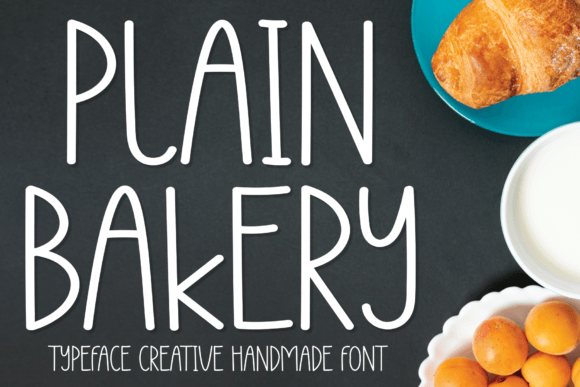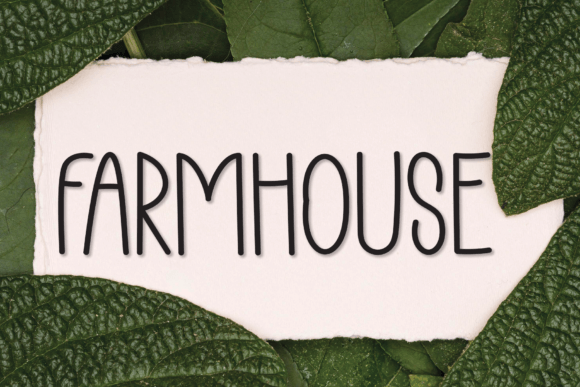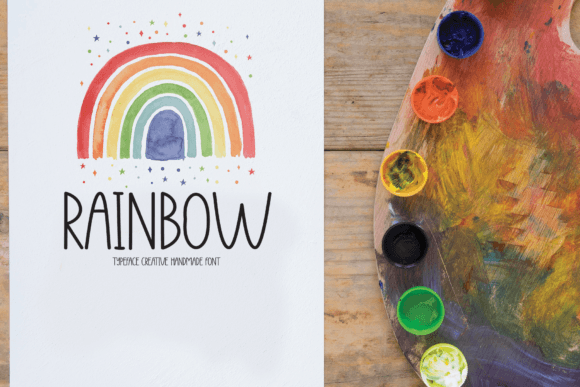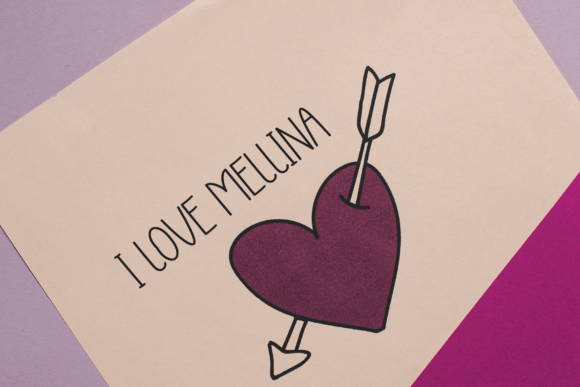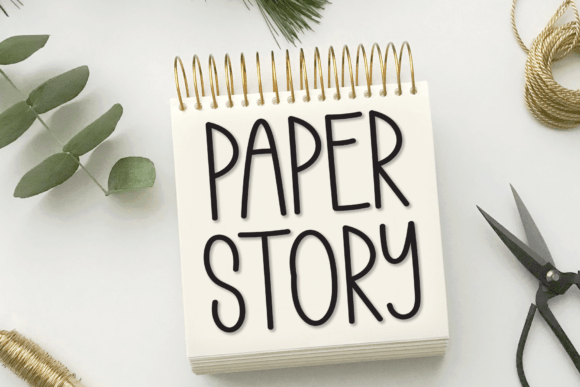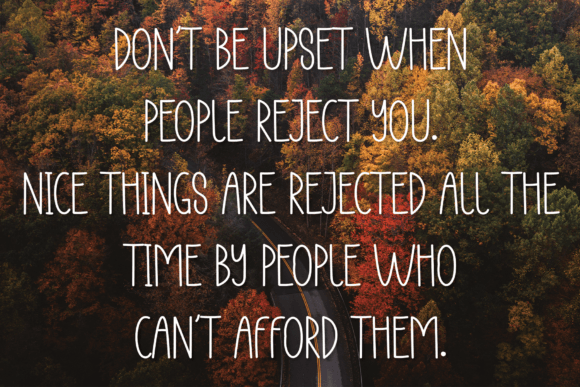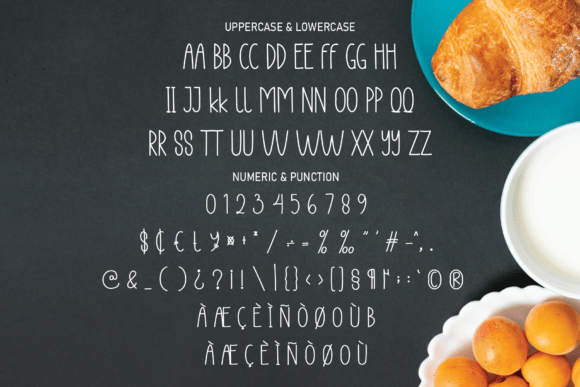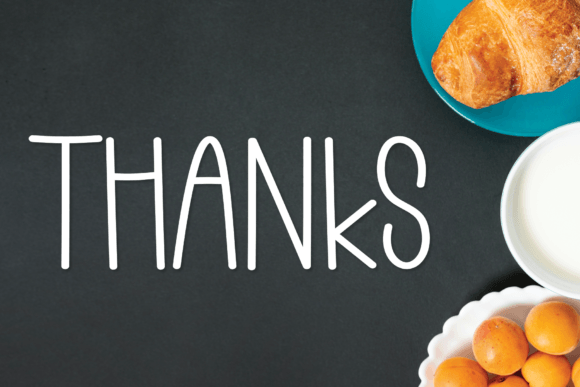
Plain Bakery Font
A Beautiful Handwritten Typeface for Creative Projects
The Plain Bakery Font is a beautiful handwritten typeface that brings a personal and unique touch to any project. Its stylish design and timeless aesthetic make it ideal for a variety of creative applications. Whether you’re working on wedding invitations, social media logos, advertisements, or product packaging, the Plain Bakery Font adds a personalized flair that makes your designs stand out with elegance.
Perfect for Wedding Invitations and Special Occasions
The Plain Bakery Font is perfect for wedding invitations and other special occasion designs. Whether you’re creating save-the-dates, invitations, or thank you cards, this font offers a romantic and charming feel to your stationery. Its handwritten style ensures your designs feel both personal and elegant, making it ideal for weddings, anniversaries, and other celebrations.
Great for Logos and Branding
For logos and branding, the Plain Bakery Font offers a stylish, approachable design. Whether you’re working on a personal brand logo, business branding, or social media content, this font provides a distinctive handwritten touch that makes your brand feel authentic and memorable. Its flowing strokes add a charming and professional appearance to your branding.
Ideal for Advertisements and Product Packaging
For advertisements and product packaging, the Plain Bakery Font gives a refined, personalized look to your materials. Whether you’re designing product labels, flyers, or advertising posters, this font ensures your marketing materials stand out with a stylish and unique flair. Its handwritten aesthetic makes it perfect for premium products and creative advertising.
Perfect for Photography and Watermarks
For photography and watermarks, the Plain Bakery Font provides a distinctive and charming touch to your images. Whether you’re adding a photographer’s signature or custom watermark to your photos, this font brings a personalized and elegant flair to your work. It’s also great for photo albums, portfolios, and watermarks, ensuring your branding is both elegant and professional.
Elegant, Legible, and Versatile
Despite its handwritten style, the Plain Bakery Font remains legible and versatile. Its well-balanced strokes ensure that your text is easy to read, even at smaller sizes or for longer passages. Whether you’re working on headlines, captions, or body text, this font strikes the perfect balance between style and clarity, making it suitable for a wide range of creative applications.
Add a Personal Touch to Your Designs with Plain Bakery Font
If you’re looking for a stylish, elegant, and handwritten font to enhance your designs, the Plain Bakery Font is the perfect choice. Whether you’re working on wedding invitations, logos, advertisements, or product packaging, this font brings a unique, personalized touch to your work. Let the Plain Bakery Font add charm, grace, and authenticity to your creative projects and help them stand out with sophistication.